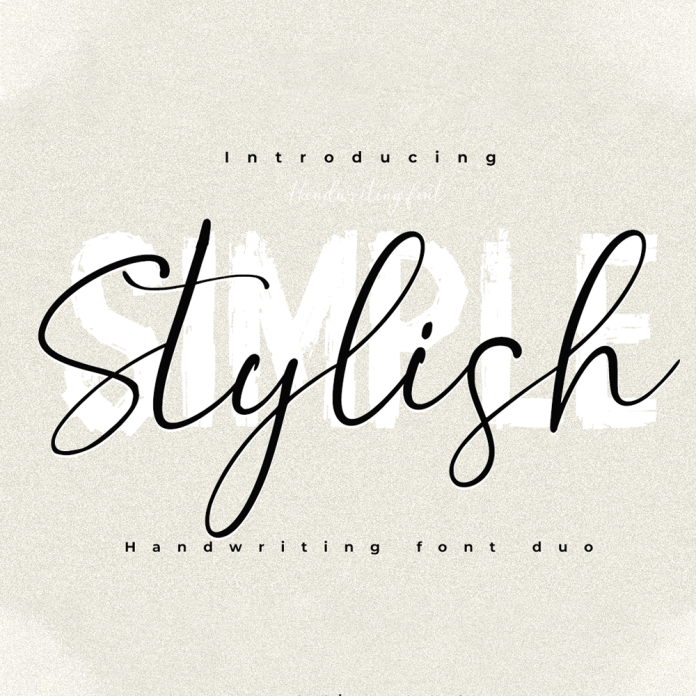
Simple Stylish font duo is a premium decorative script font that combines a sleek modern style with classic elegance. It is versatile and perfect for adding a touch of sophistication to any design project, whether it be invitations, logos, or branding materials.